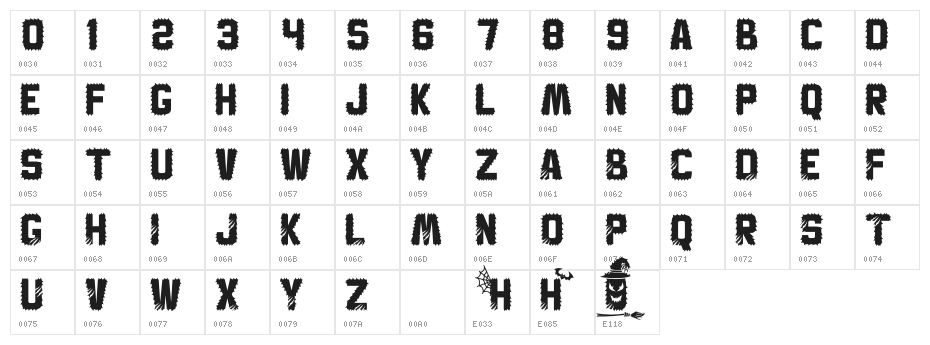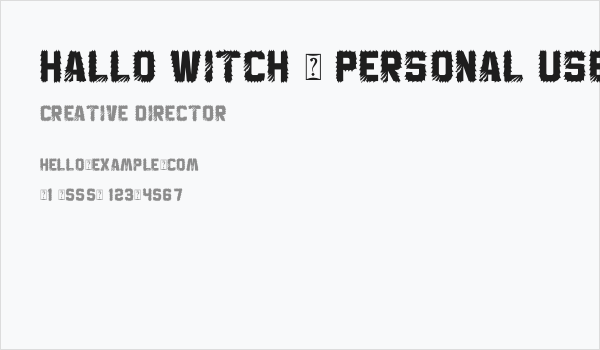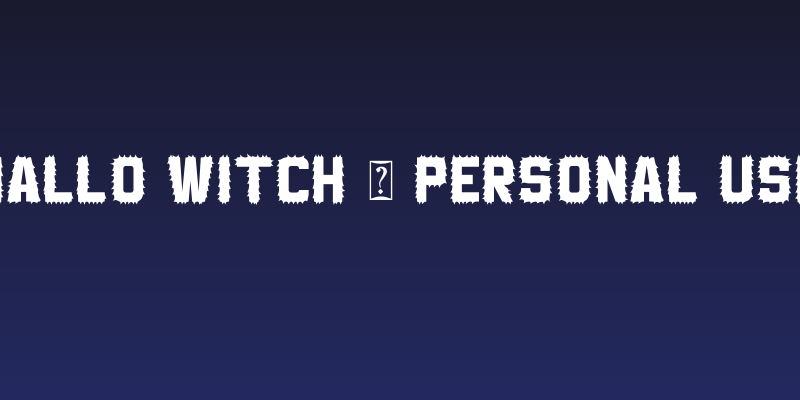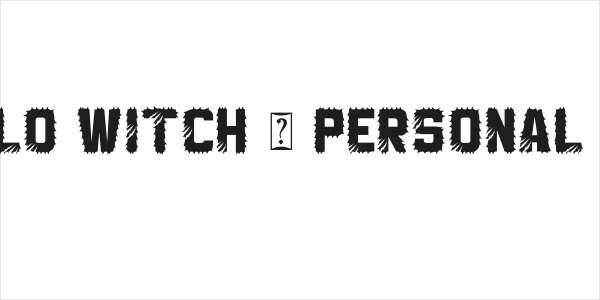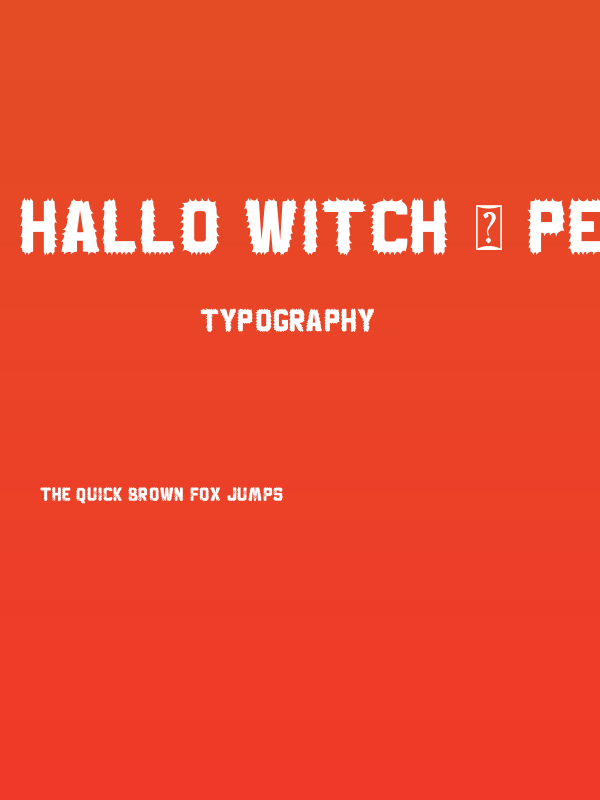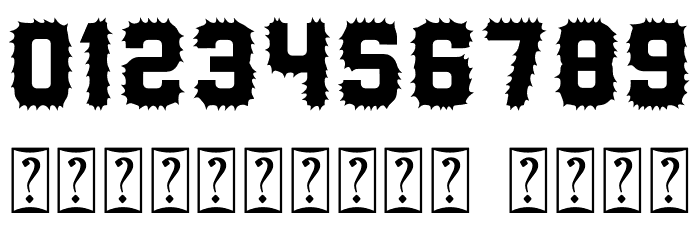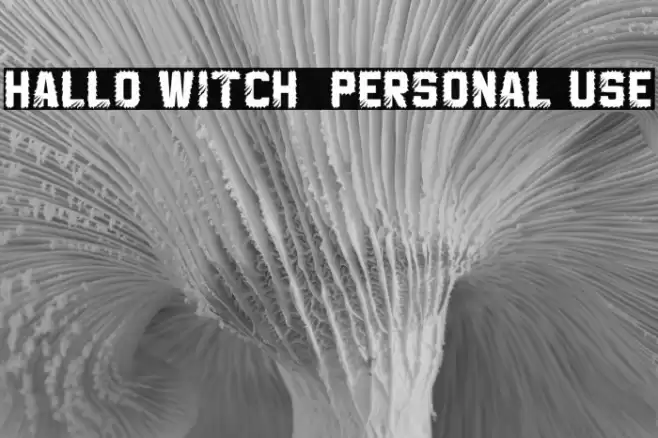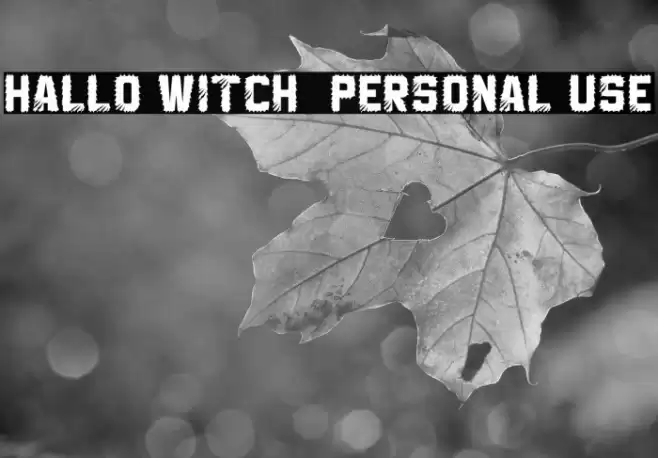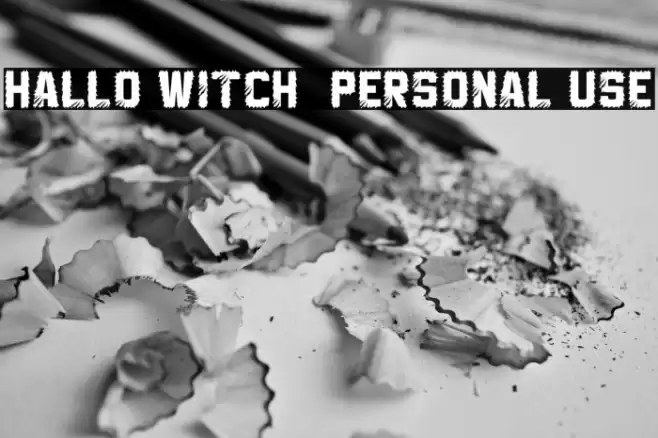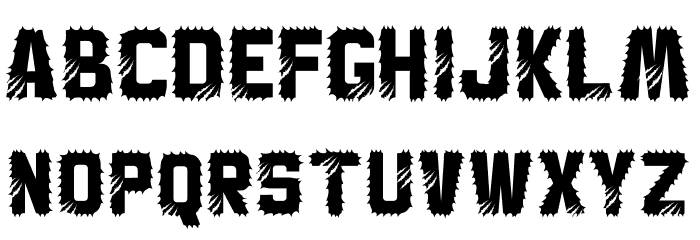
Hallo Witch - Personal Use Font
This font features a bold and jagged design, reminiscent of torn paper or sharp claws. The characters are heavily stylized with irregular edges, giving them a spooky and dynamic appearance. The uppercase letters are particularly striking, with each character appearing as if it has been cut out with a serrated edge. The numbers and special characters follow the same design ethos, maintaining a consistent theme throughout. This font is perfect for creating a sense of urgency or danger, making it ideal for Halloween-themed projects or anything requiring a dramatic flair.
| Use Case | Headlines, Posters, Themed Events |
| Proposed Projects | Ideal for Halloween-themed designs, horror movie posters, haunted house flyers, or any project needing a dramatic, edgy look. |